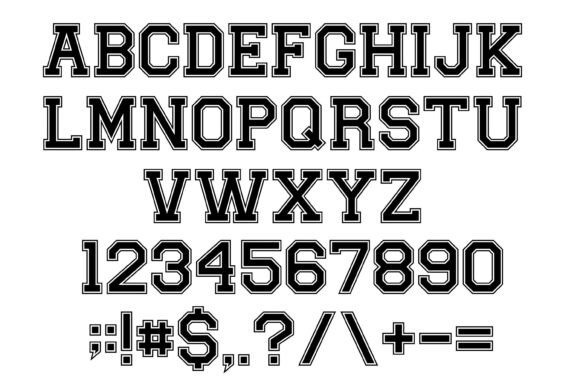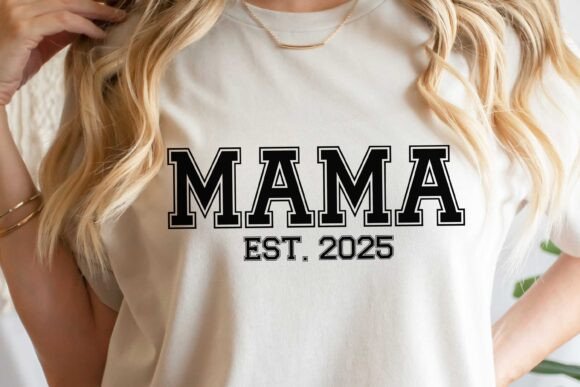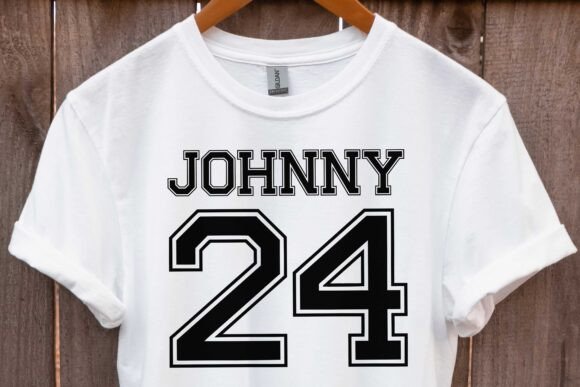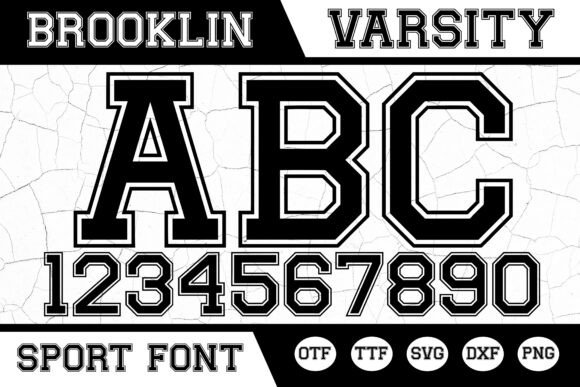
Introducing Brooklin Varsity Font: The Ultimate Typographic Style for Sports and Team Branding
Are you looking for a font that embodies the spirit of athleticism and competition? Do you want to create stunning designs that evoke the nostalgia of classic college sports and jersey lettering? Look no further than Brooklin Varsity Font, a bold and commanding display font that is perfect for designers, crafters, and sports enthusiasts alike.
What is Brooklin Varsity Font?
Brooklin is a bold varsity display font inspired by the classic typography of college sports, university team branding, and championship designs. With its sharp edges, strong outlines, and commanding presence, Brooklin delivers an authentic athletic typography style that is sure to make your designs stand out.
Designed to evoke the nostalgia of traditional sports jerseys and team branding, Brooklin Varsity Font combines tradition with modern impact. Whether you’re creating sports uniforms, merchandise, banners, or bold headline graphics, Brooklin is the perfect font to add a touch of athletic style to your designs.
Key Features of Brooklin Varsity Font
• Bold and commanding presence: Brooklin Varsity Font is designed to make a statement, with sharp edges and strong outlines that demand attention.
• Authentic athletic typography style: Inspired by classic college sports and jersey lettering, Brooklin delivers a genuine athletic typography style that is perfect for sports teams, universities, and sports enthusiasts.
• Versatile design: Brooklin Varsity Font is perfect for a wide range of design applications, including sports uniforms, merchandise, banners, and bold headline graphics.
• Easy to read: Despite its bold and commanding presence, Brooklin Varsity Font is easy to read, making it perfect for use in a variety of design contexts.
Who Can Benefit from Brooklin Varsity Font?
Brooklin Varsity Font is perfect for a wide range of designers, crafters, and sports enthusiasts, including:
• Graphic designers: Looking for a bold and commanding font to add to their design arsenal.
• Sports teams and universities: Seeking to create authentic athletic typography for team branding, jerseys, and merchandise.
• Crafters and scrapbookers: Looking for a unique and stylish font to add to their craft projects.
• Marketing and advertising professionals: Seeking to create bold and attention-grabbing headlines and graphics.
How to Use Brooklin Varsity Font
Brooklin Varsity Font is easy to use and can be applied to a wide range of design applications, including:
• Sports uniforms and jerseys: Add a touch of authenticity to your sports team branding with Brooklin Varsity Font.
• Merchandise and apparel: Create eye-catching merchandise and apparel with Brooklin’s bold and commanding presence.
• Banners and signage: Use Brooklin Varsity Font to create bold and attention-grabbing banners and signage.
• Headline graphics and posters: Add a touch of athletic style to your headline graphics and posters with Brooklin Varsity Font.
Brooklin Varsity Font is a bold and commanding display font that is perfect for designers, crafters, and sports enthusiasts alike. With its sharp edges, strong outlines, and authentic athletic typography style, Brooklin delivers a unique and stylish font that is sure to make your designs stand out. Whether you’re creating sports uniforms, merchandise, banners, or bold headline graphics, Brooklin Varsity Font is the perfect choice.